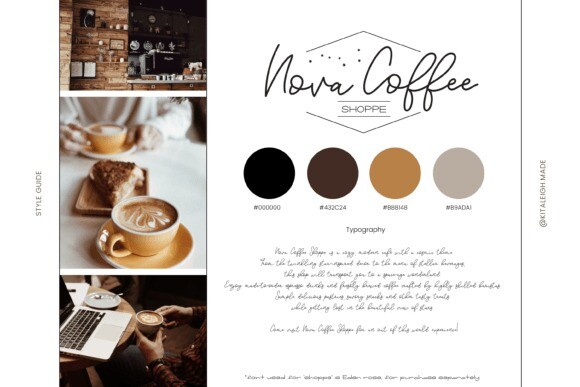
Starlight Script Typeface
Starlight Script Font is a beautifully delicate script font that captures the serene and whimsical essence of the night sky. With its fluid strokes and elegant curves, Starlight adds a dreamy, graceful touch to any project. This font is perfect for wedding invitations, branding, social media posts, and logos, where a touch of elegance and wonder is needed. It also includes lovely star extras, adding a magical celestial element to your designs. Let Starlight illuminate your creative work with its subtle sophistication and charm.